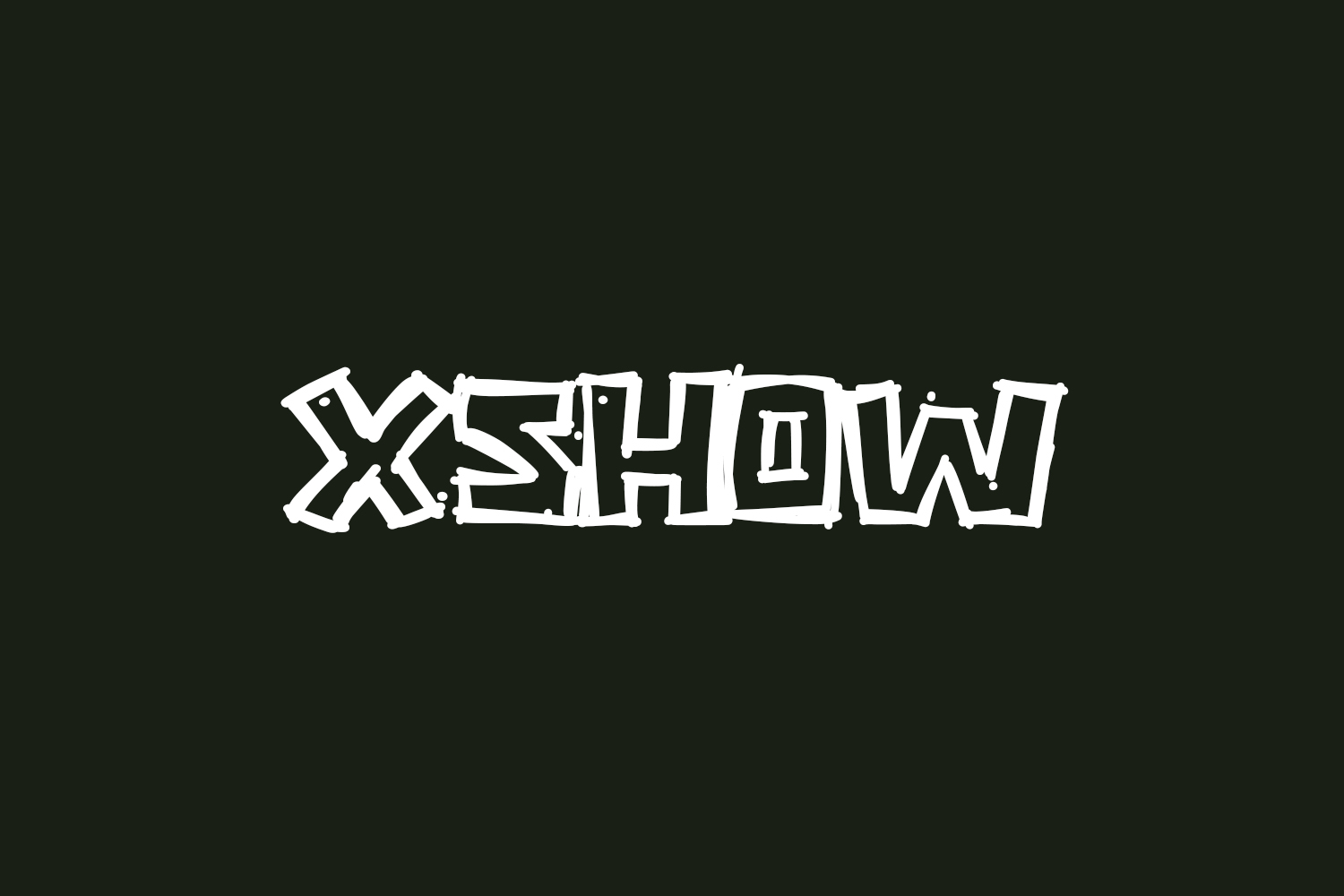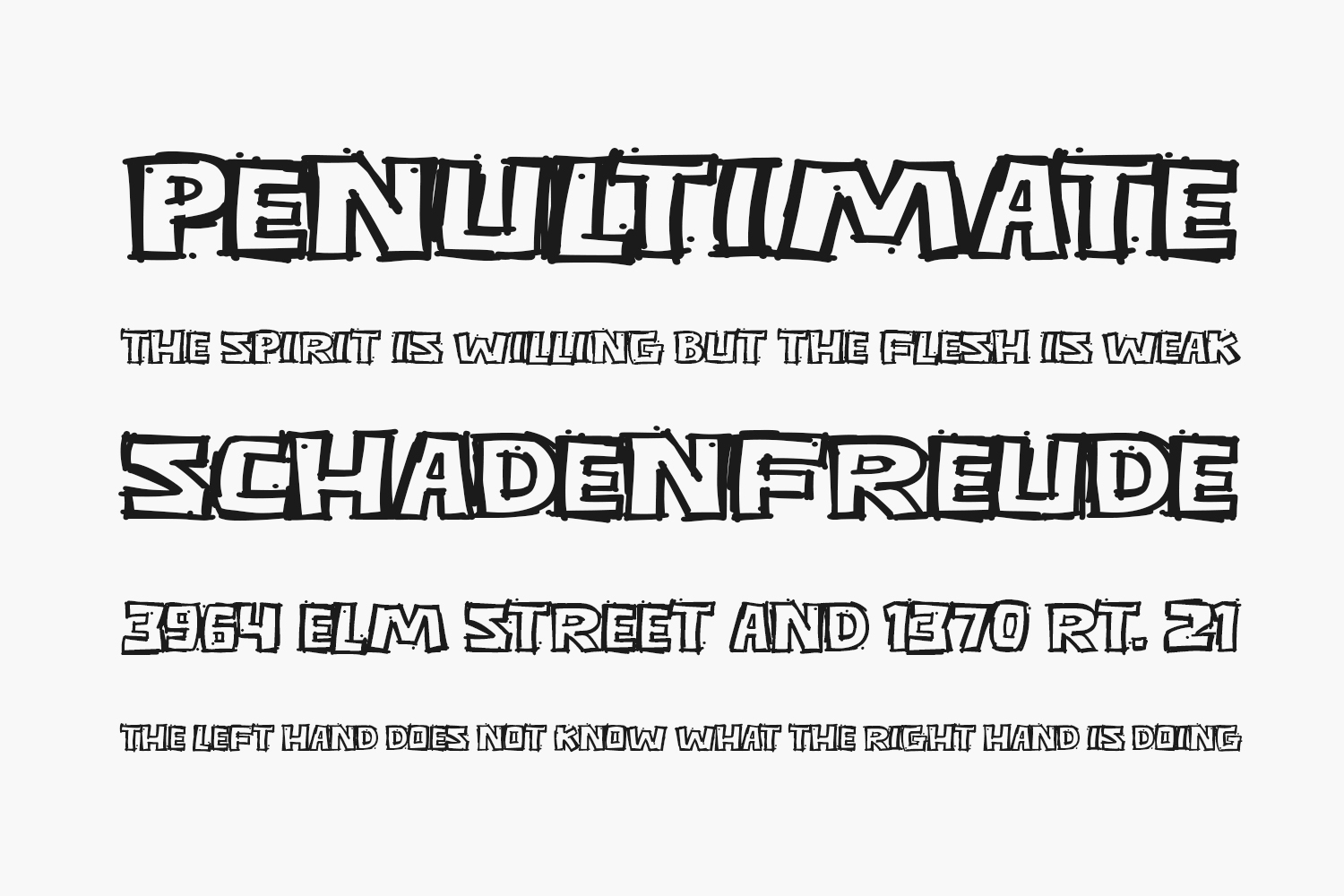
Xshow Free Font, a contemporary and distinctive typeface, is ideal for enhancing posters, logos, magazines, book covers, banners, and various other design projects. Acquire this exceptional font to elevate your creative endeavors. Its versatility allows seamless integration into a vast array of projects, ensuring that your designs captivate attention and stand out effortlessly. Xshow Free Font was designed by Alfin Ridhowi and is free for personal use only. Please purchase the full version for commercial use.